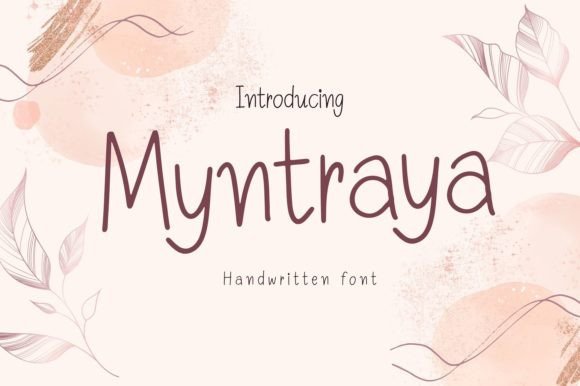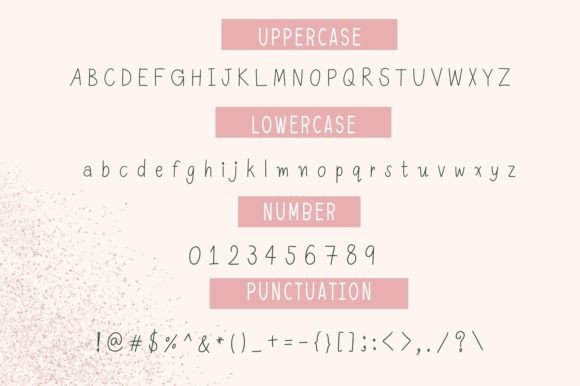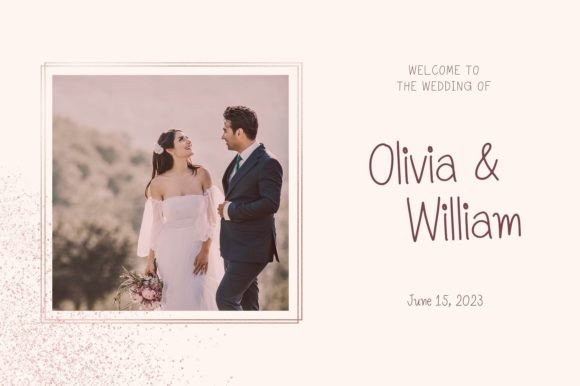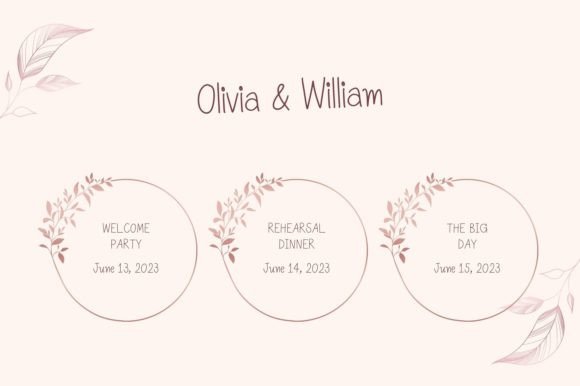
About Myntraya Font
Myntraya is a cute and handwritten font. The lightness of its characters makes it suitable for a wide range of design projects. It embodies playfulness and authenticity and is the perfect choice for all your favorite projects, or even for blog posts, logos, branding, ads, invitations, greeting cards, planners, photo albums, decorations, and much more. Add it to any of your designs, and enjoy the results!